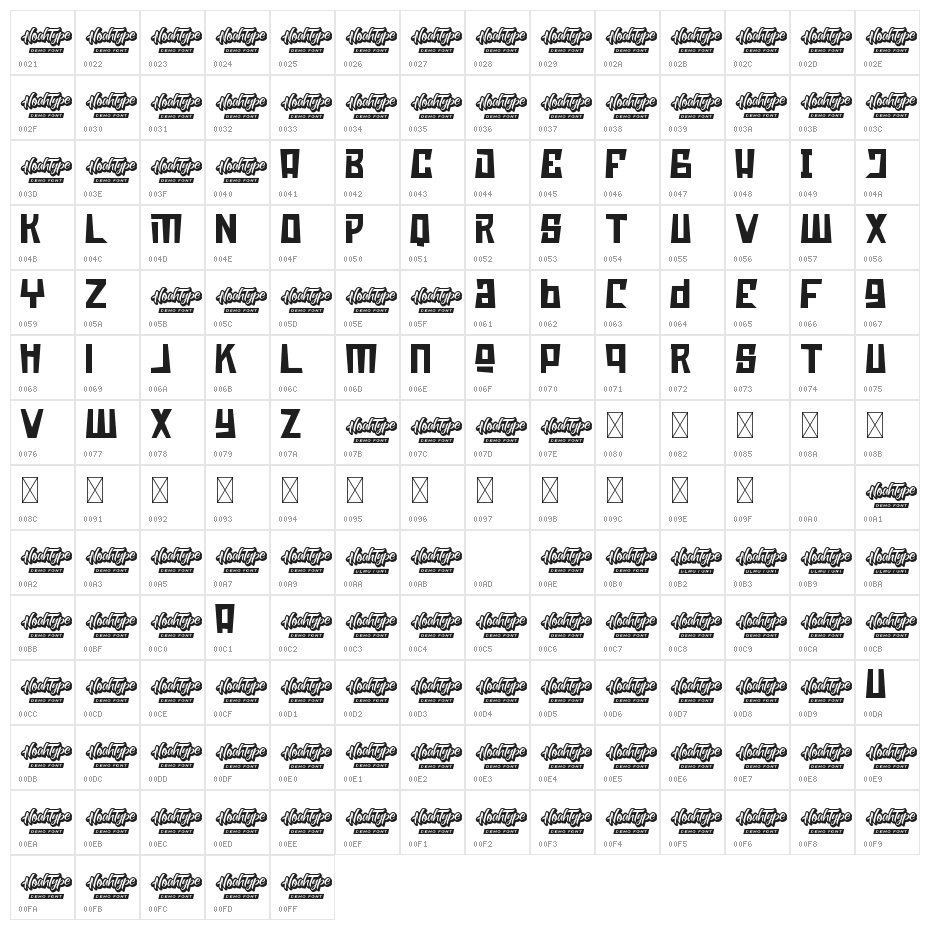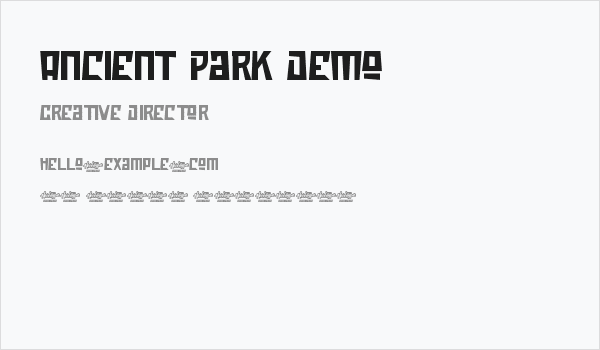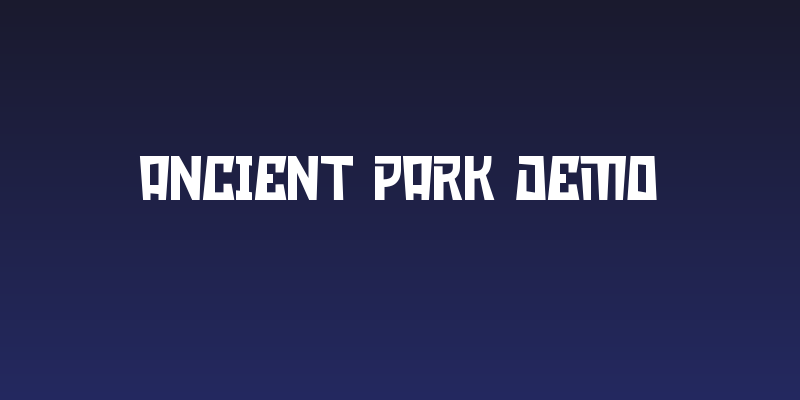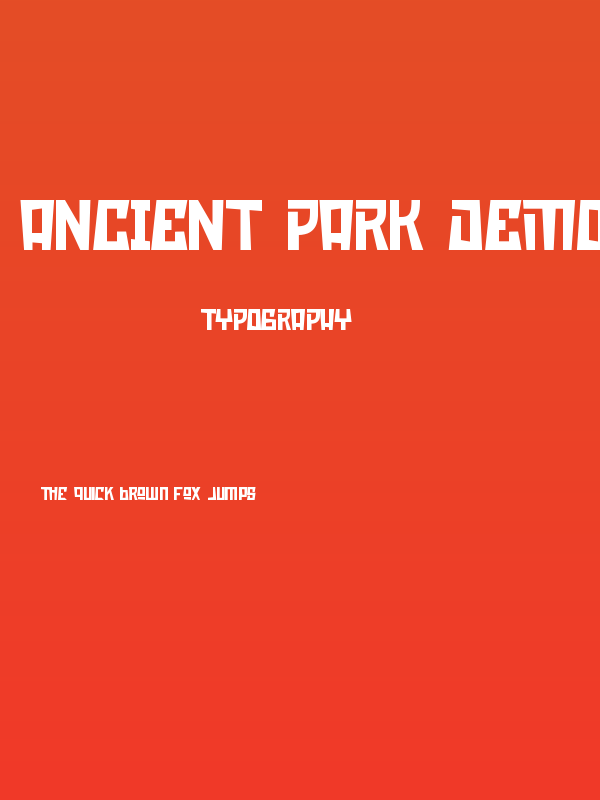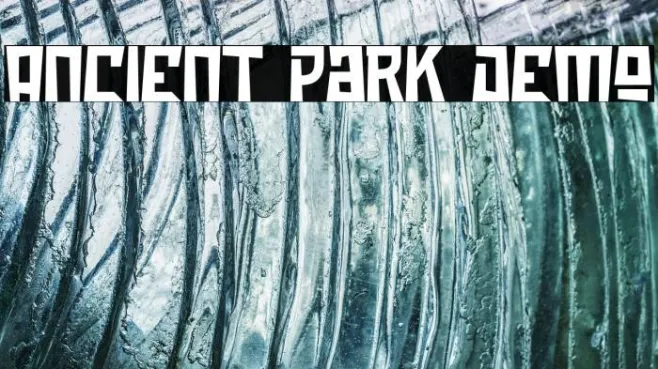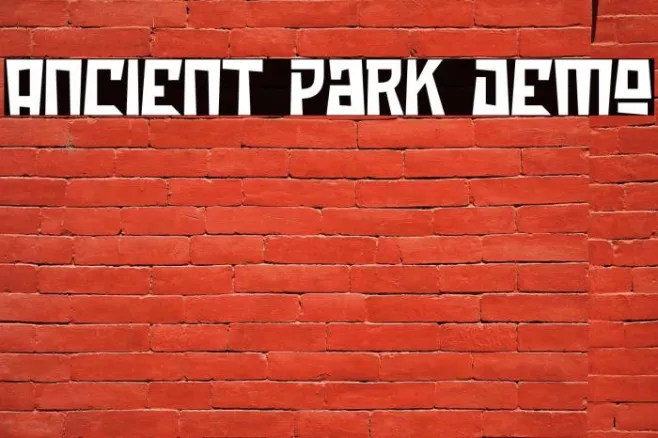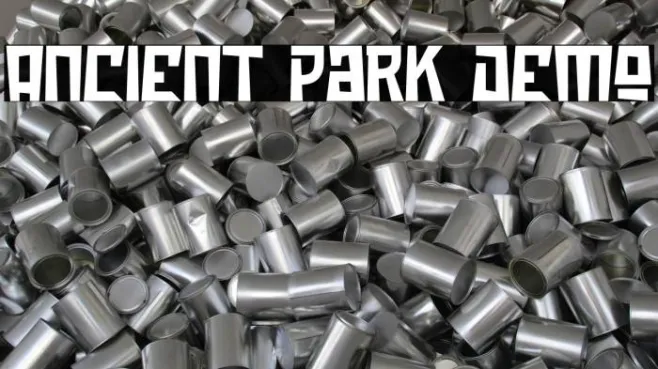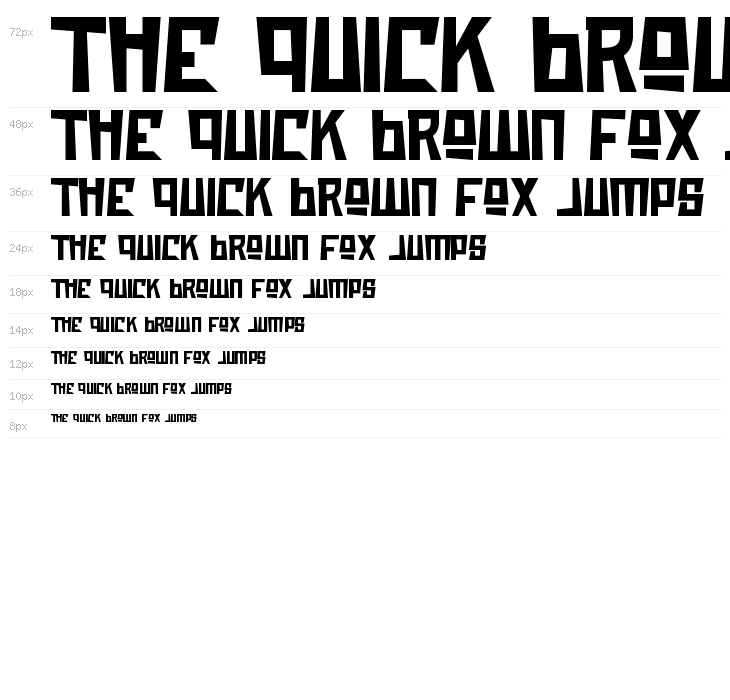
Ancient Park Demo Font
Ancient Park Demo Description
This font features a bold and angular design, with a distinct geometric style that gives it a modern and edgy appearance. The characters are constructed with sharp angles and straight lines, creating a sense of movement and dynamism. The uppercase and lowercase letters maintain a consistent style, with the uppercase being slightly more pronounced. The numbers and special characters follow the same design principles, ensuring uniformity across the font. This font's unique style makes it stand out, ideal for projects that require a strong visual impact.
| Proposed Projects | Ideal for branding, posters, and headlines that require a strong visual impact. |